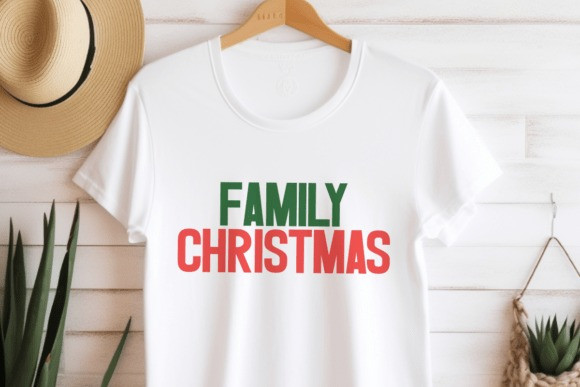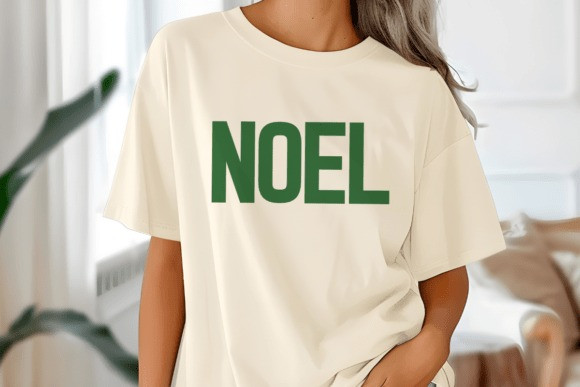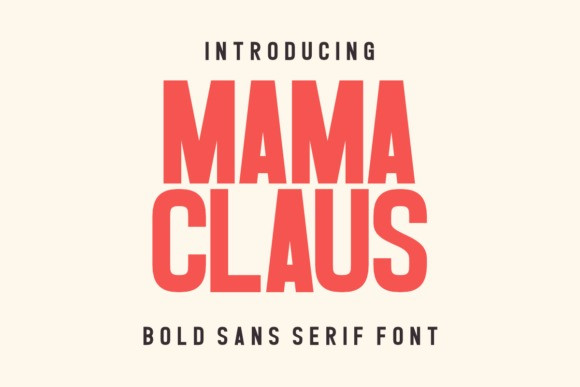
Mama Claus Font
Mama Claus Font is a modern bold sans serif font with a stunning vintage feel. It’s perfect for logos, t-shirts, mugs, invitations, greeting cards, branding, posters, packaging, signs, cutting boards, printables, crafting, and other designs. Whatever your creative needs are, Mama Claus is the perfect choice for a modern yet simple design!